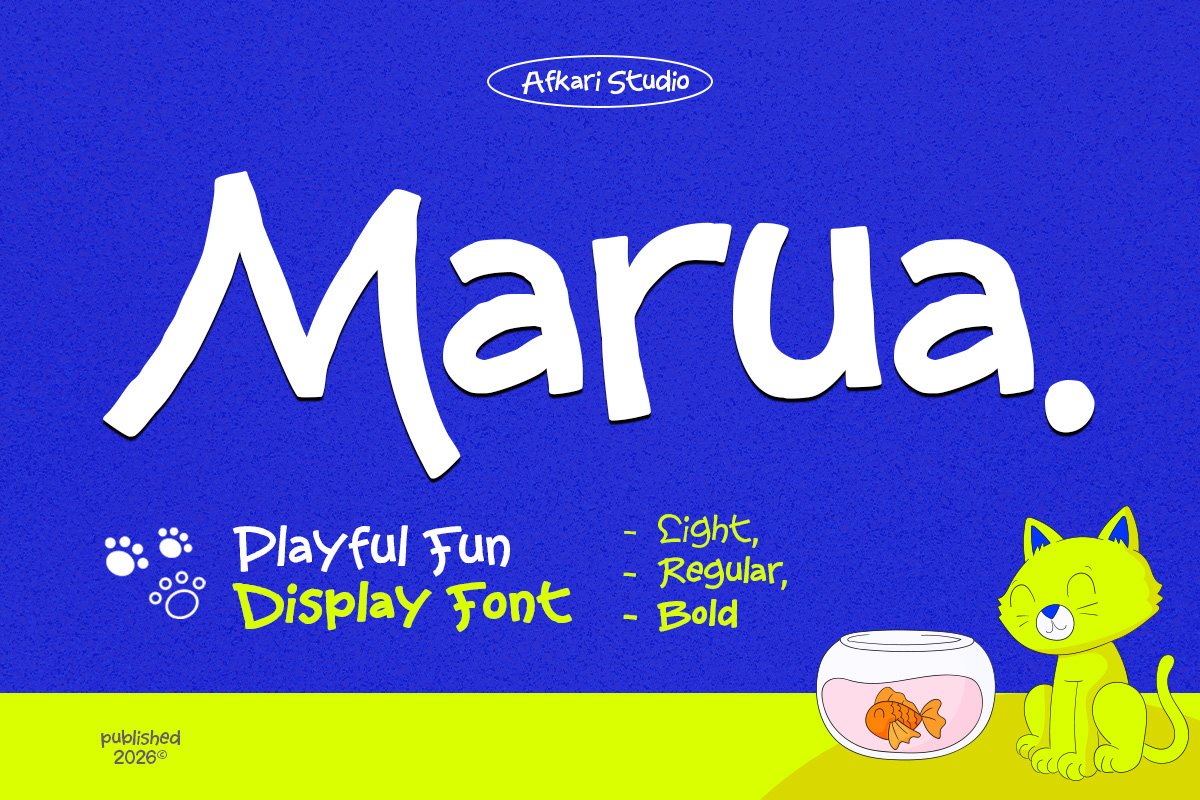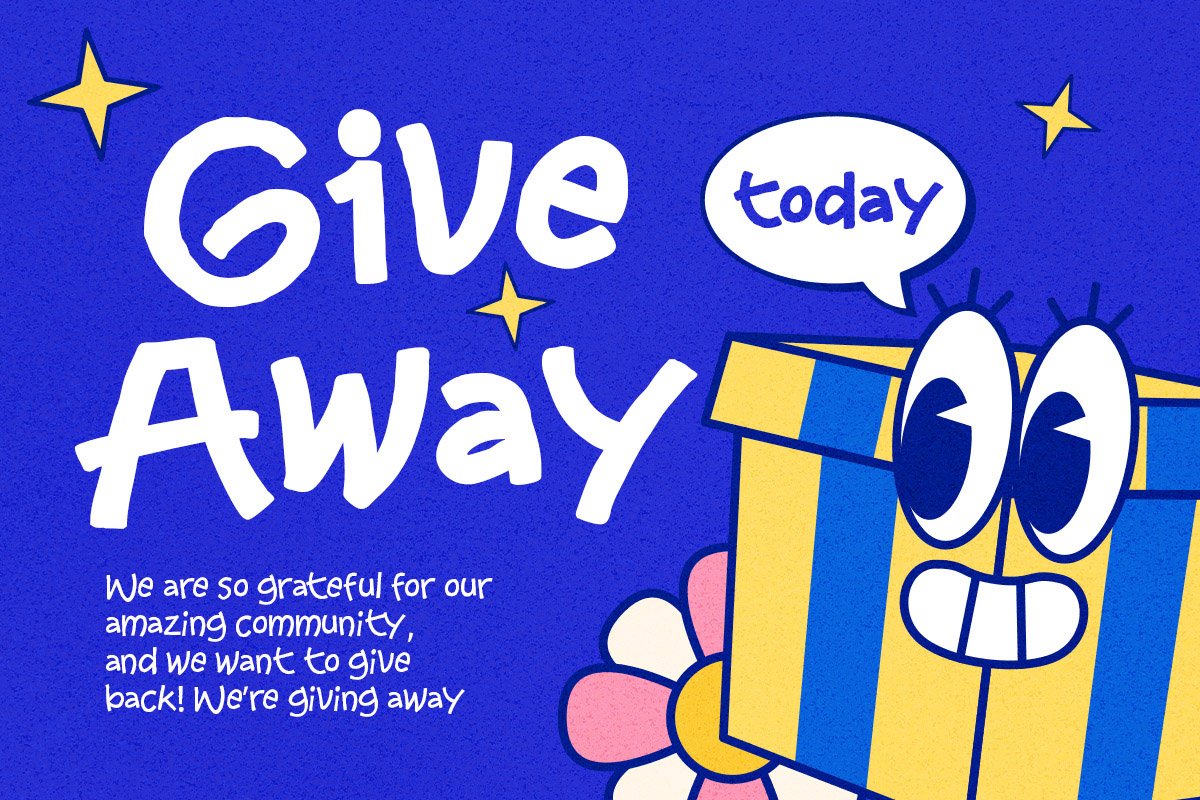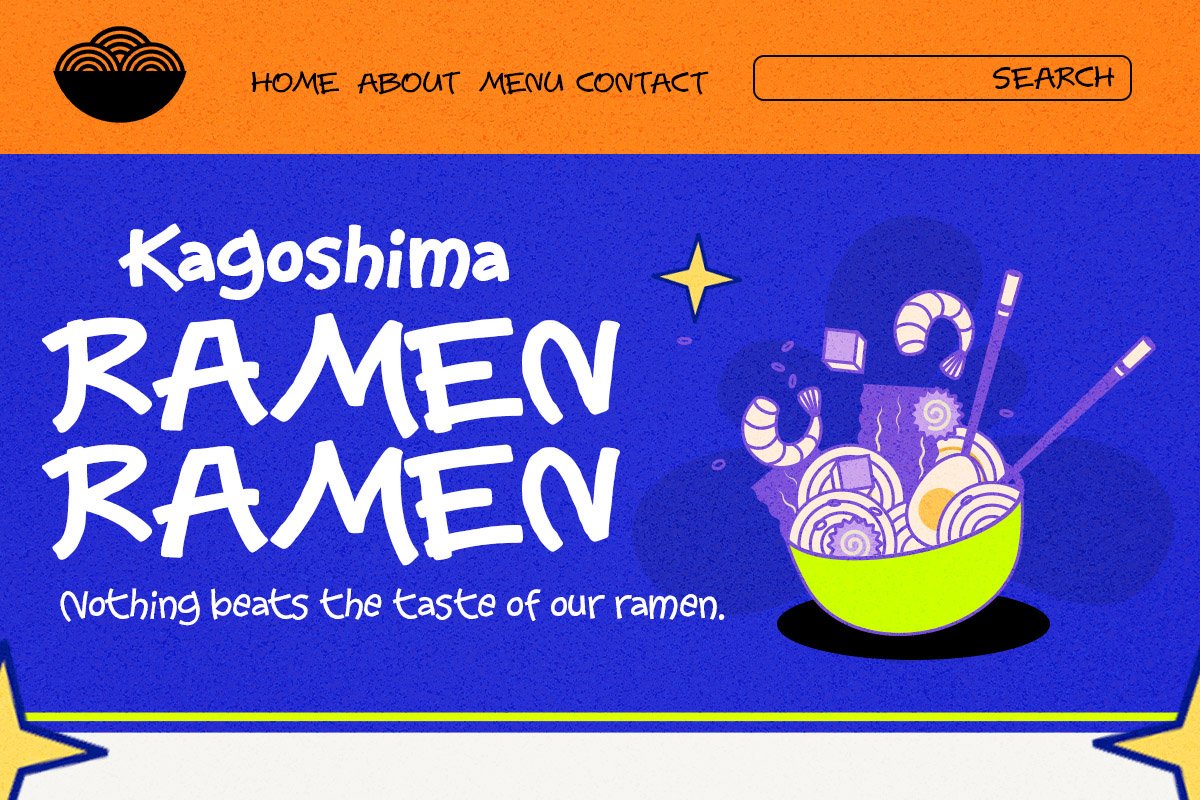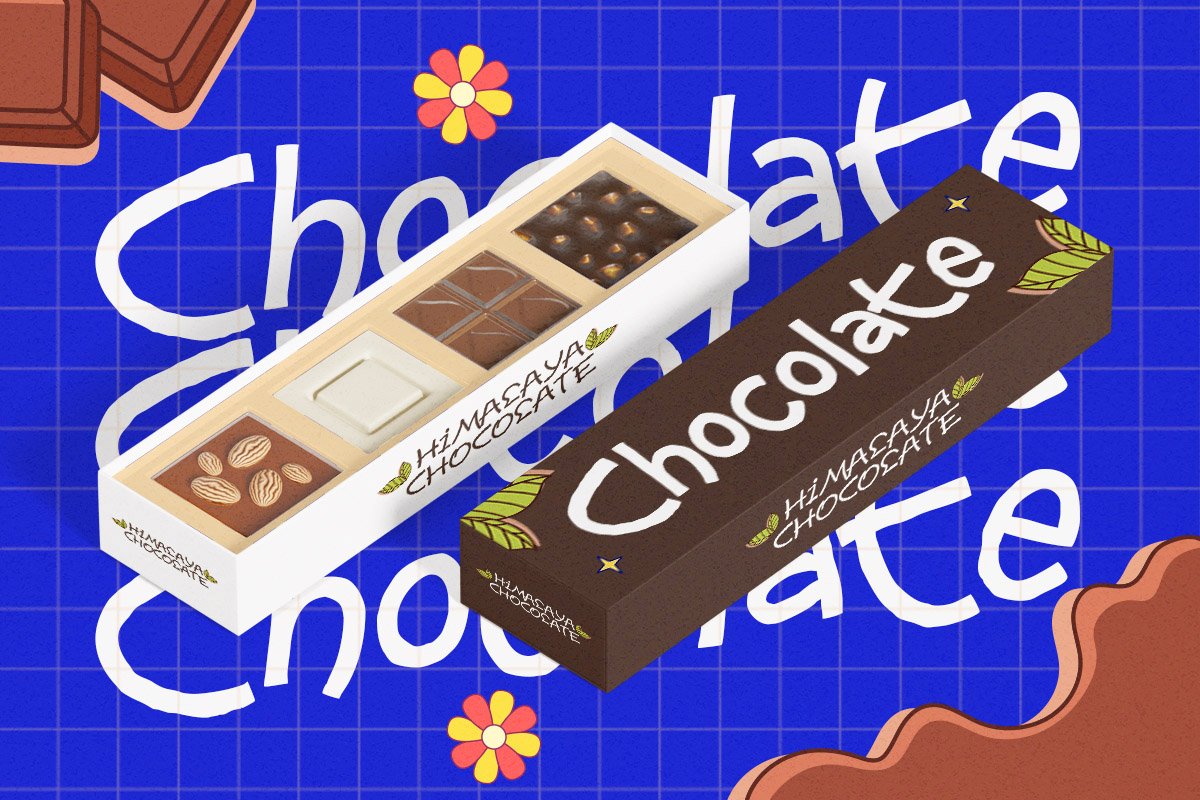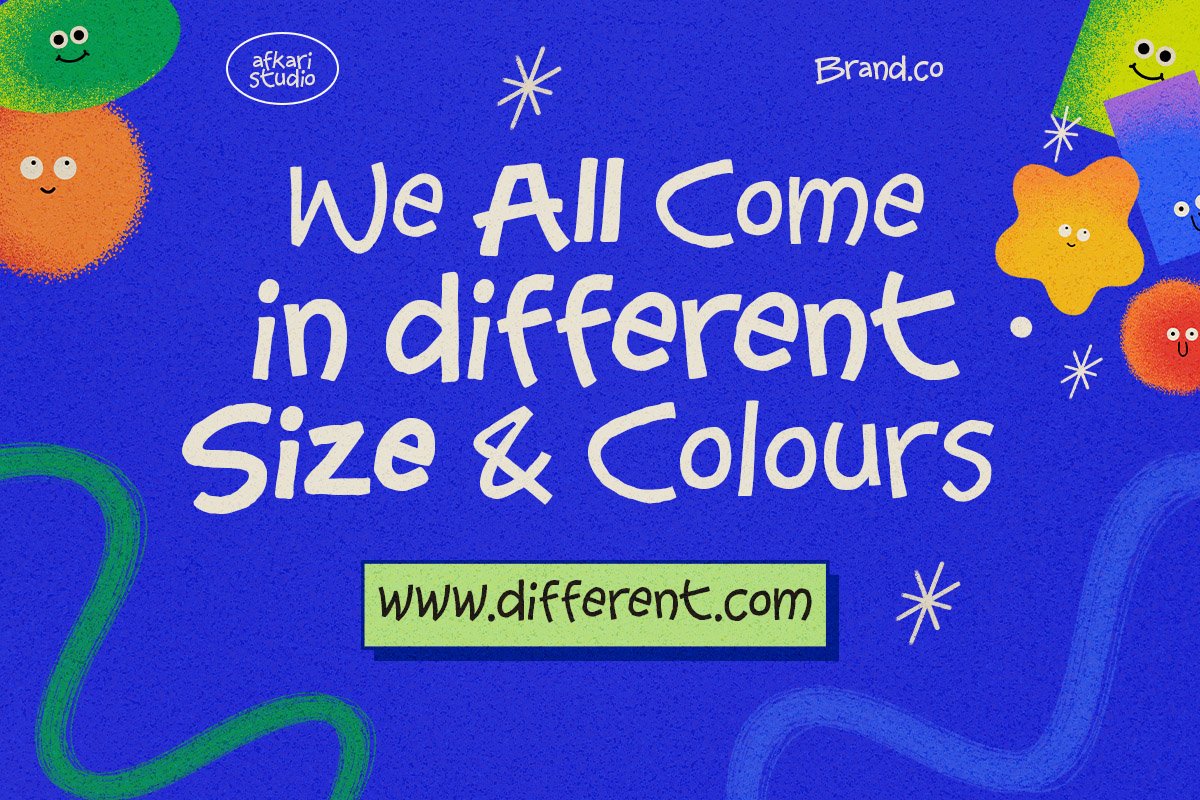
Marua – Playful Fun Display Font is a font designed to bring cheerful personality and energetic vibes into your creative projects. With its rounded shapes, lively curves, and friendly letterforms, Marua instantly creates a joyful atmosphere that captures attention and adds character to any design. This playful display font is perfect for designers who want typography that feels expressive, modern, and full of life.
Marua